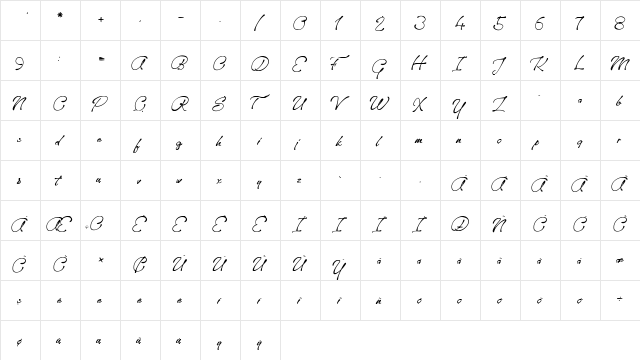
Sanctuary Playground Regular
| Foundry | Octotype |
| Designer | Octotype |
Design Context for Sanctuary Playground Typeface
Sanctuary Playground softens its letterforms with rounded terminals, giving it an approachable, friendly quality that works well in consumer-facing and digital contexts.
A natural fit for tech startups, health and wellness brands, children's products, and friendly consumer apps.
Font Pairing: Pairs well with a rounded or humanist sans for body copy, maintaining the friendly tone without relying on Sanctuary Playground to carry extended reading.
Pro Tip: Pair Sanctuary Playground with a geometric sans for a balanced system — the rounded softness works as a warm counterpoint to harder-edged companions.